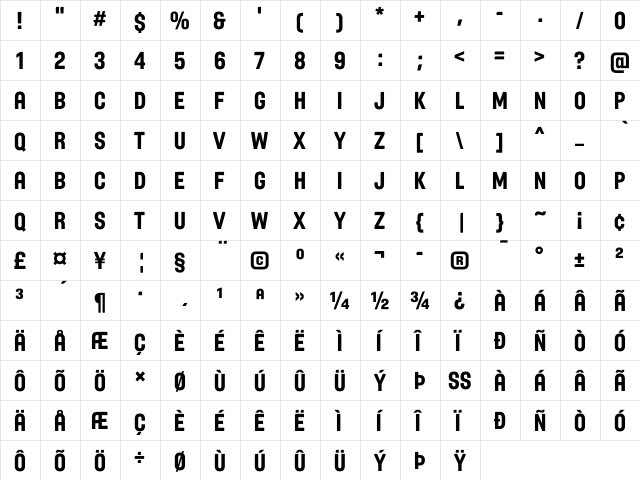
Fiba Regular
Design Context for Fiba Typeface
Fiba is a composed and adaptable typeface that performs quietly and consistently across a wide range of design contexts.